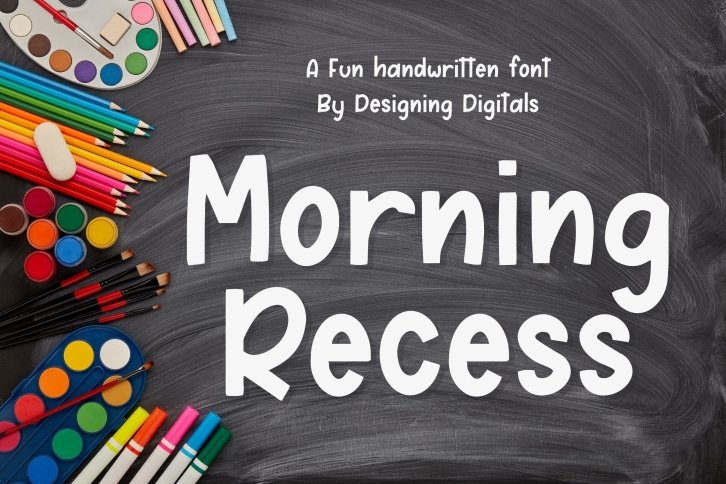
Morning Recess is a great font that was designed by Designing Digitals. Imagine the amount of combinations you can create using this font! The archive is 6.50 MB and it was released on July 29, 2022. Morning Recess looks beautiful on wedding invitations, greeting cards, logos, posters, labels, t-shirt designs, logos, business cards and is perfect for use in ink or watercolor works, fashion, magazines, packaging and food menus, children's books and more!